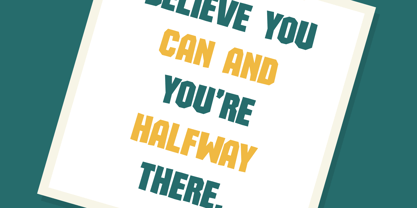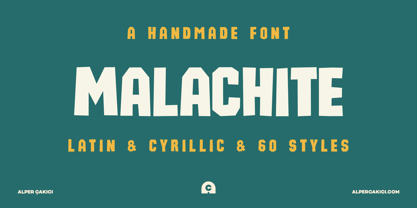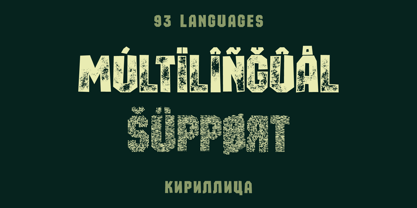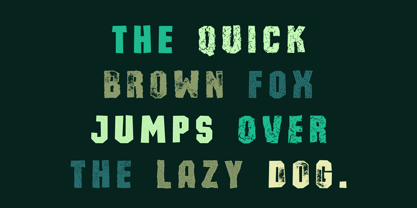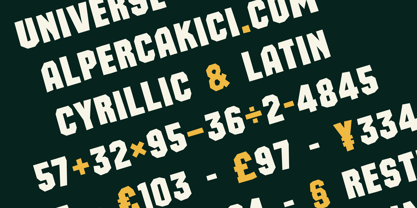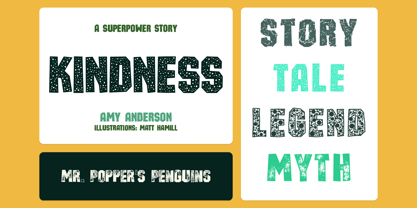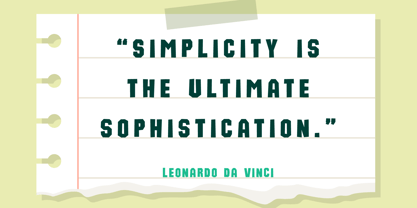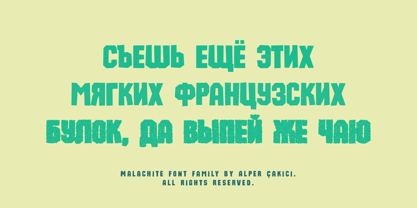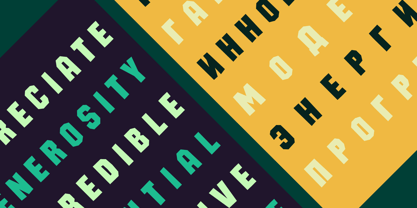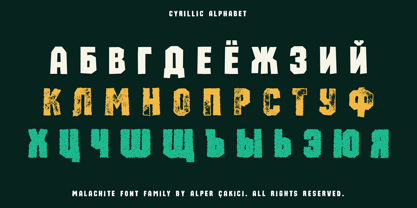
Malachite
The Malachite Font Family was designed by Alper Çakıcı and published by AlperCakici. Malachite contains 60 styles and family package options. More about this family
Malachite is a bold varsity display typeface family inspired by classic athletic lettering, collegiate sports, championship jerseys, and vintage team branding. Built for powerful headlines and high-impact typography, it combines timeless sports aesthetics with contemporary precision, making it an excellent choice for both nostalgic and modern design projects.
Designed with strong geometric construction, balanced proportions, and confident letterforms, Malachite captures the unmistakable spirit of American college athletics. Whether you're creating sports branding, team uniforms, esports identities, merchandise, or promotional graphics, it delivers a bold, energetic presence that immediately commands attention.
The family includes 60 carefully crafted styles, offering a wide variety of decorative textures and artistic finishes. Alongside the clean Regular and Italic styles, Malachite features numerous creative variations including Bikkie, Blot, Bubble, Bumpy, Cluster, Cookie, Dapple, Dragee, Edge, Felttip, Hatched, Micron, Pentadot, Polka, Pumice, Rustic, Rustic Rough, Scatter, Sepia, Sepia Micron, Shadow, Shattered, Speckle, Spongy, Spotty, Stamped, Stamped Rough, Texture, and Wax, each with matching italic companions. These stylistic alternatives allow designers to create everything from clean varsity logos to distressed vintage apparel and eye-catching promotional graphics.
Malachite supports 196 Latin and Cyrillic-based languages, making it suitable for international branding and multilingual design projects. With 471 glyphs, extensive language coverage, and carefully refined spacing, it performs reliably across professional workflows.
Optimized for both screen and print, Malachite is ideal for:
• Varsity & collegiate branding
• Athletic apparel and jerseys
• Sports logos
• Team identities
• Esports branding
• Championship graphics
• School merchandise
• University publications
• Posters and event promotions
• Packaging
• Editorial headlines
• YouTube thumbnails
• Social media graphics
• Gaming titles
• Sticker and Cricut projects
• T-shirt and merchandise design
• Retro-inspired branding
• Vintage sports aesthetics
If you're looking for a versatile collegiate display family that combines classic varsity character with a wide range of creative textured styles, Malachite is built to deliver bold, memorable typography across every medium.